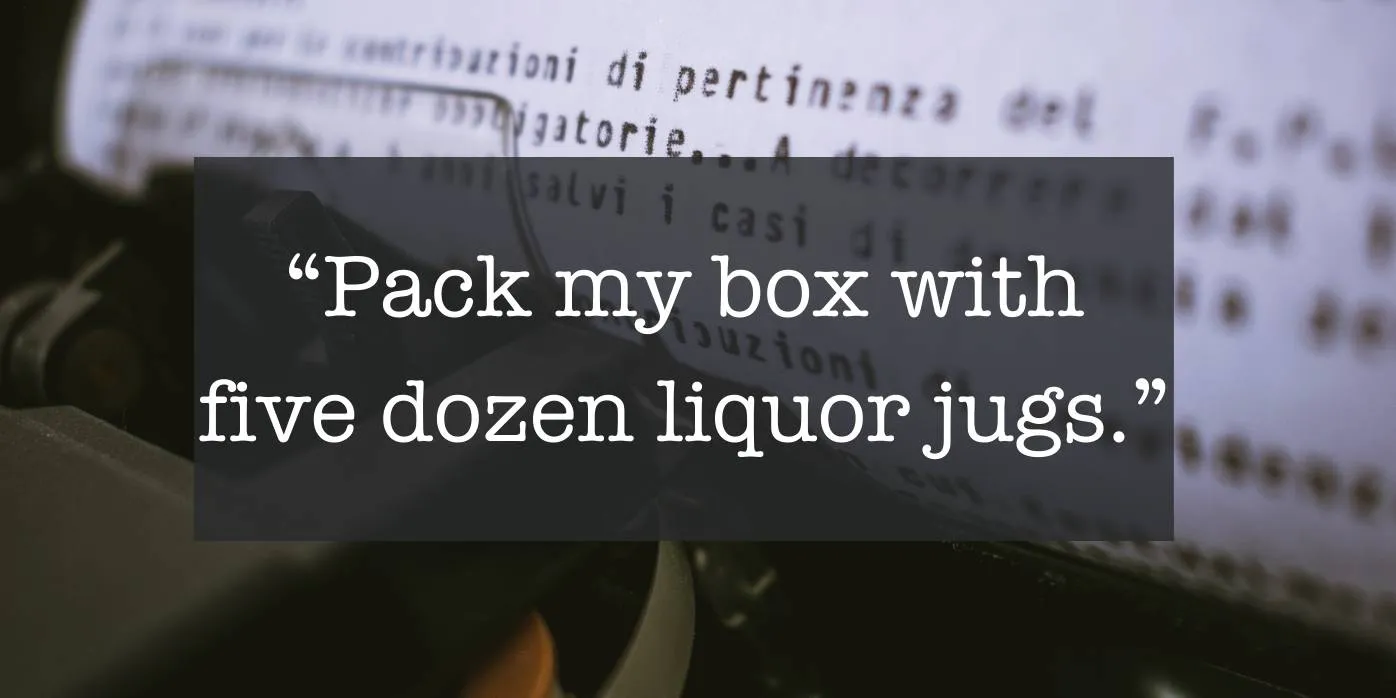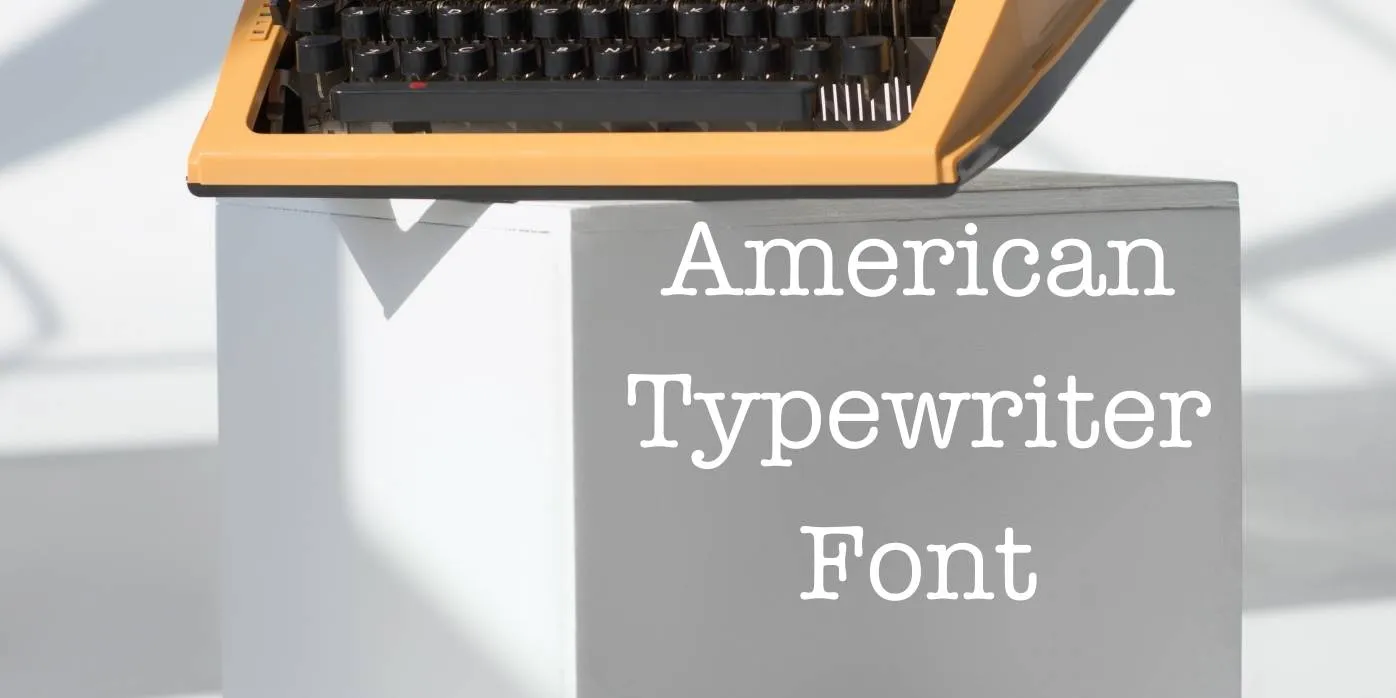
American Typewriter Font
American Typewriter Font is developed and published by very famous designers Joel Kaden, and Tony Stan.  It was actually inspired by the typeface created by IBM in 1936. This typewriter font is very famous and used a lot, especially in the United States. This typeface belongs to the serif font family and is a very popular choice for headings, titles, and body text. The typeface has a strong vertical emphasis and its letters are almost all the same width, which gives it a modern look.
This typewriter font is available in both regular and bold weights, making it perfect for either headlines or body text. This typeface is specified by the CSS Family. This typeface comes in different styles like light, book, medium, and heavy. This tremendous Font is the perfect font for a modern look.